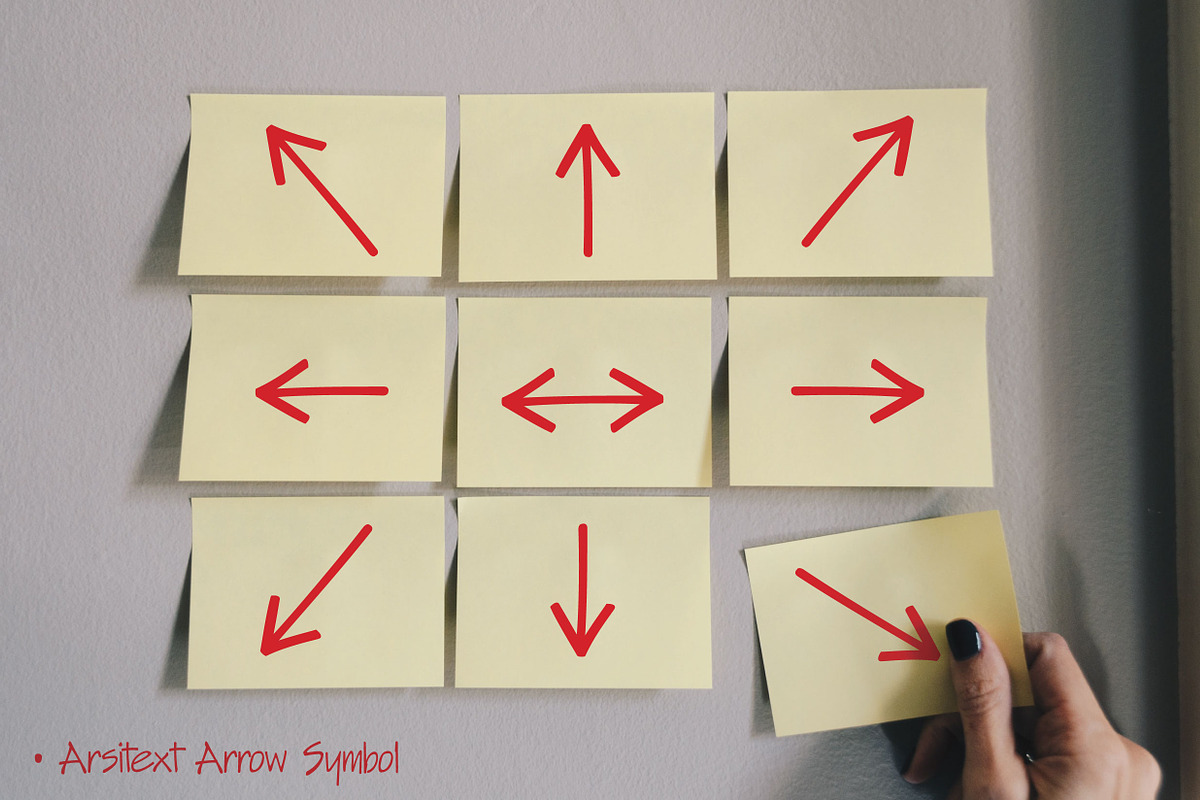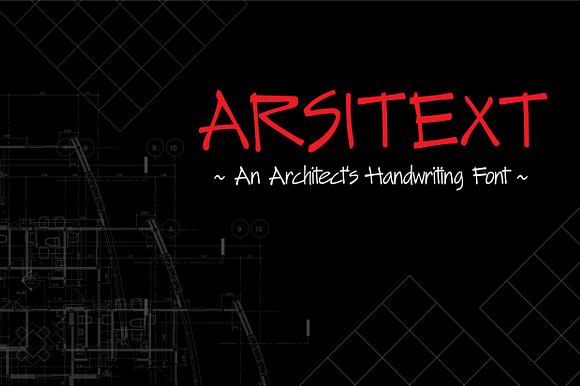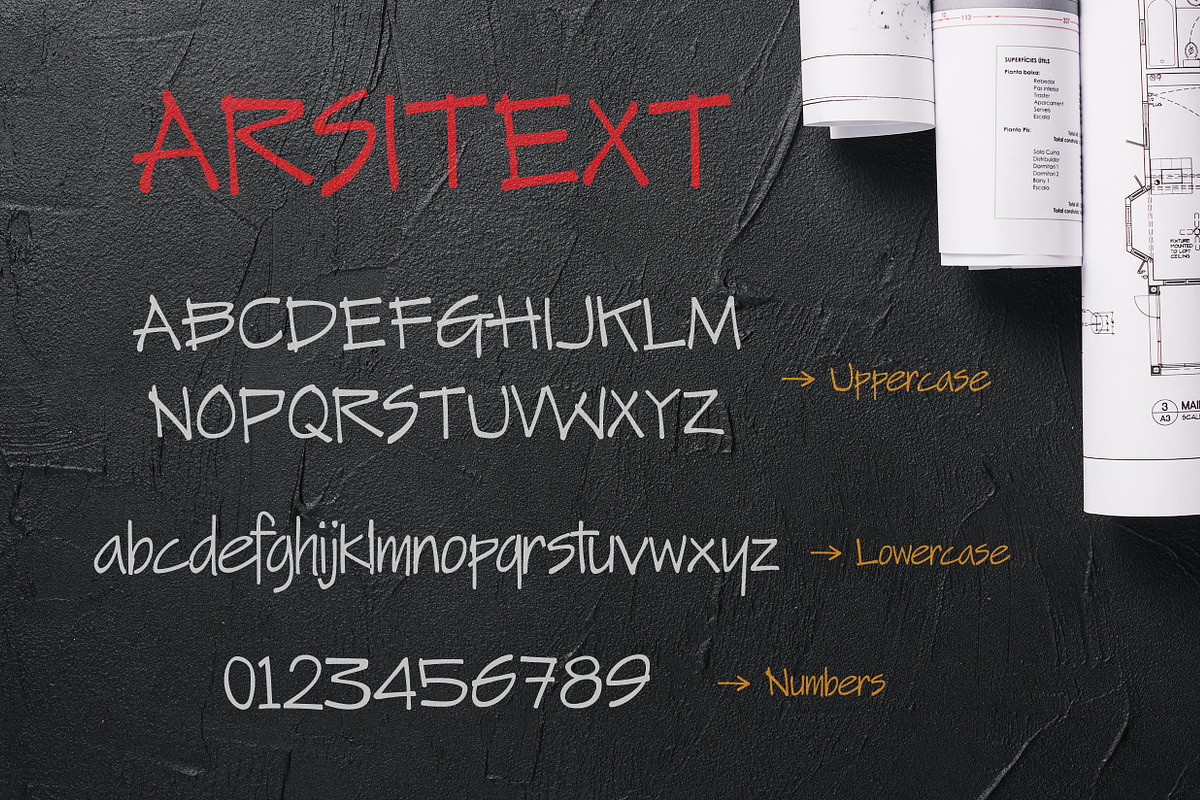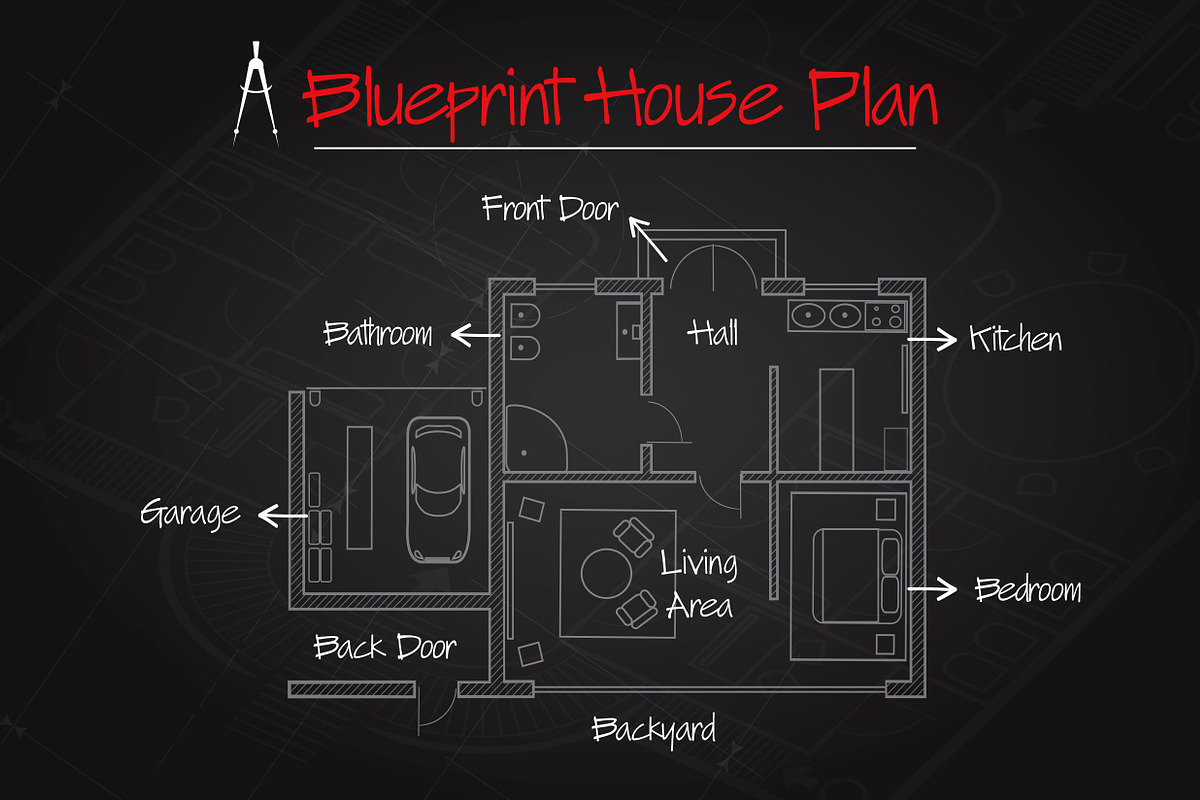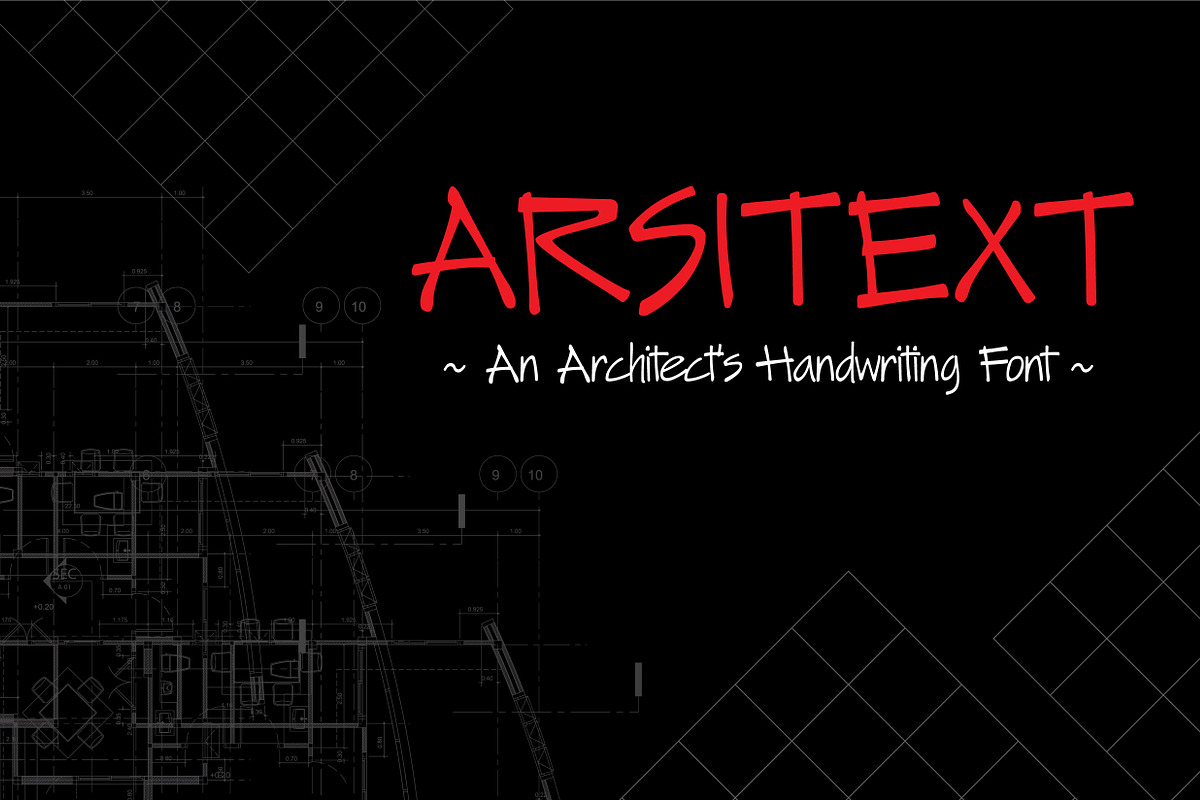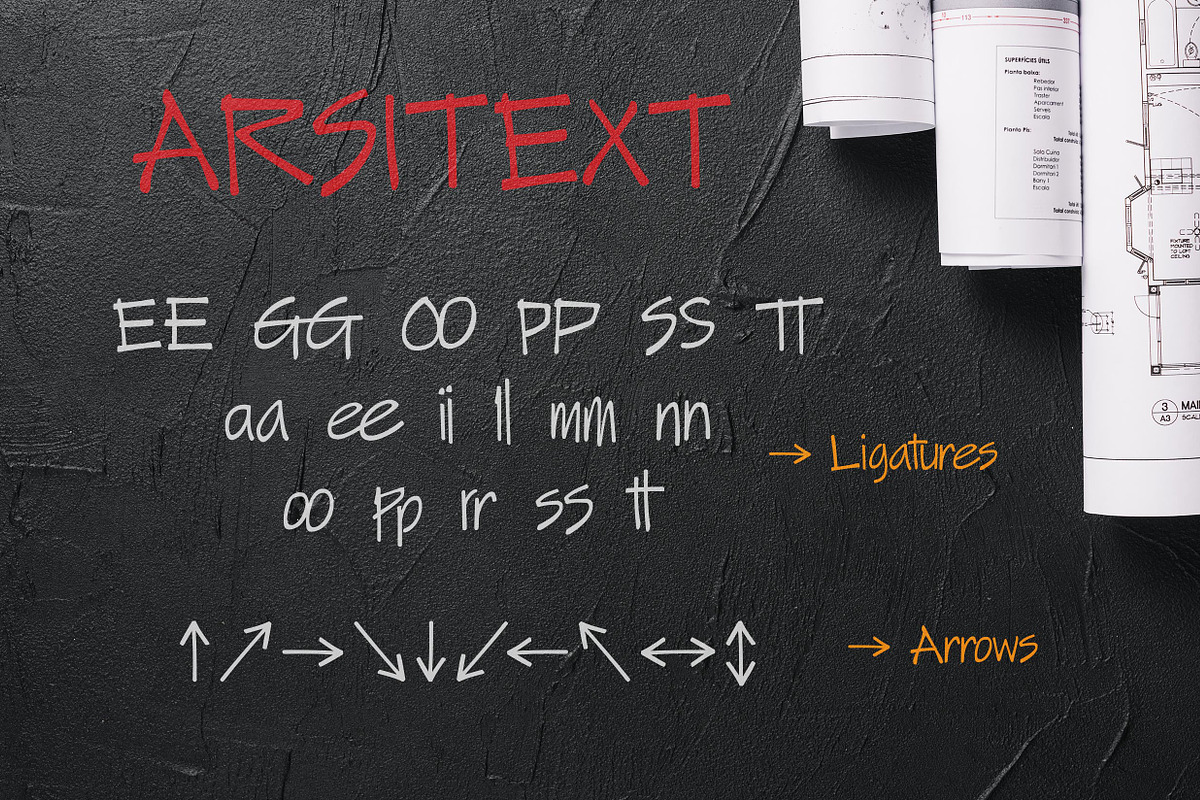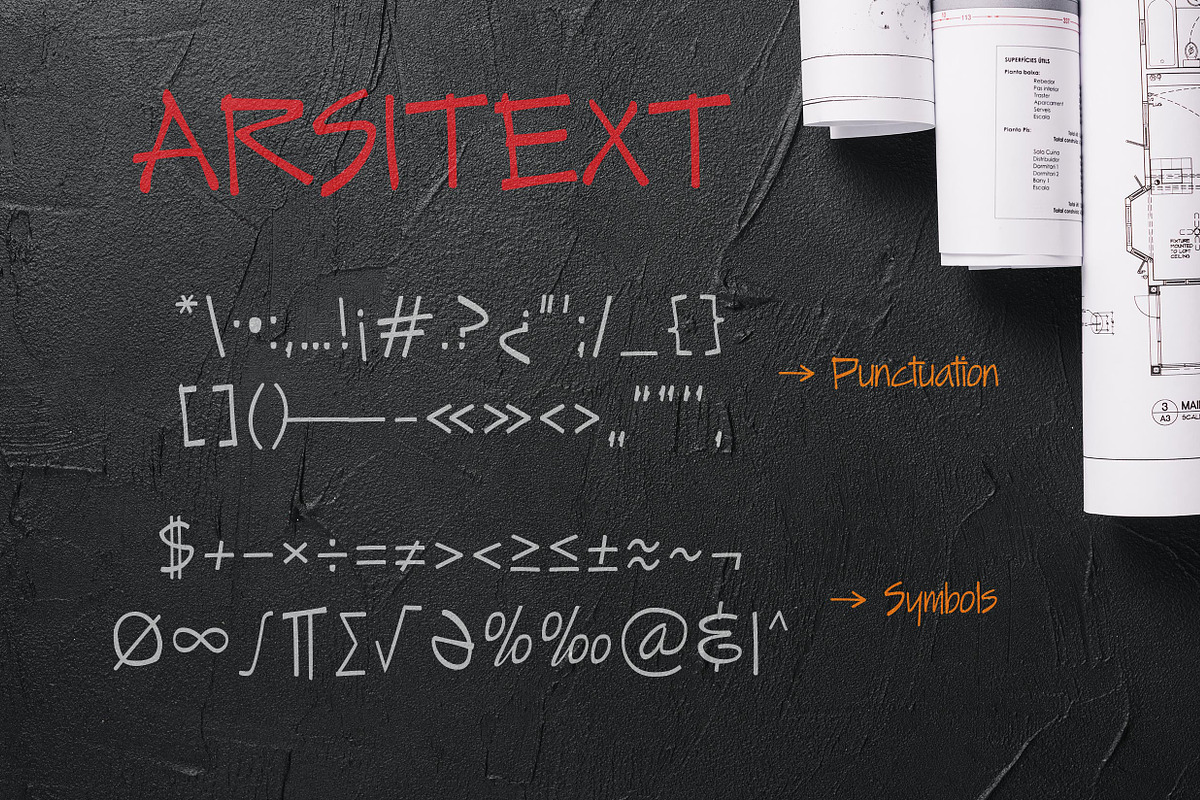
ARSITEXT - Handwriting Font
Arsitext is an Architect's Handwriting display font. It has Opentype features ligatures of character and extra Arrow Symbol, To give you an extra creative work. He's perfect for the designer, architect or orderly list-maker in all of us.
- It has Opentype features ligatures of character and extra Arrow Symbol, To give you an extra creative work.